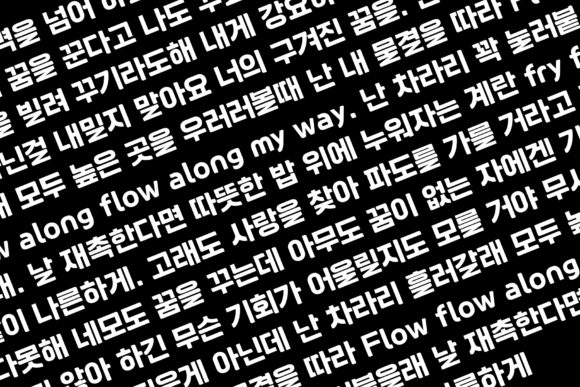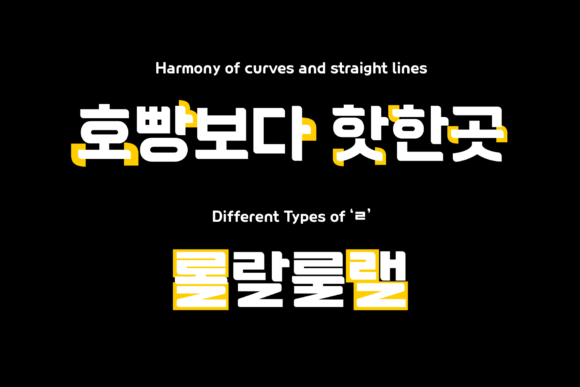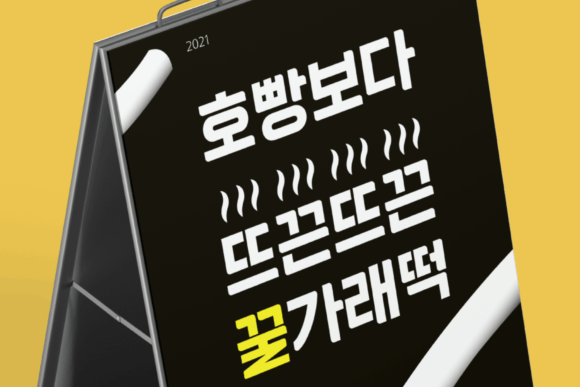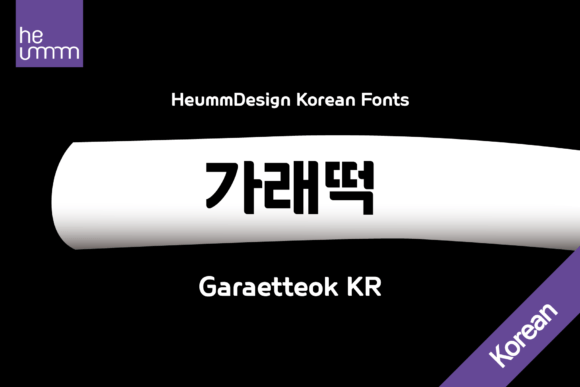
Garaetteok Kr Font: A Cute and Playful Headline Font
In the world of typography, fonts play a crucial role in conveying the tone and personality of a message. For designers and crafters, finding the perfect font can be a daunting task. However, if you’re looking for a font that exudes cuteness and playfulness, look no further than Garaetteok Kr Font. In this article, we’ll explore the unique features of Garaetteok Kr Font and why it’s a great addition to your design toolkit.
The Inspiration Behind Garaetteok Kr Font
Garaetteok Kr Font is a headline font that draws inspiration from the traditional Korean rice cake, garaetteok. The font’s design is characterized by straight strokes and rounded ends, giving it a distinctive rice cake feel. The creator of the font aimed to capture the playful and lively spirit of Korean culture, and the result is a font that’s both fun and engaging.
Unique Design Elements
One of the standout features of Garaetteok Kr Font is its unique design elements. The initial and final consonants ‘ㄹ’ are designed differently, giving the font a fun sense of rhythm. The straight strokes and lively curves add personality to the writing, making it perfect for headlines and titles. The font’s design is also optimized for Hangul, Korean, making it a great choice for designers working with Korean language projects.
Key Features of Garaetteok Kr Font
- Cute and playful design: Garaetteok Kr Font is perfect for designers looking for a font that adds a touch of whimsy to their designs.
- Straight strokes and rounded ends: The font’s unique design elements give it a distinctive rice cake feel.
- Fun sense of rhythm: The initial and final consonants ‘ㄹ’ are designed differently, adding a playful touch to the font.
- Lively curves: The font’s curves add personality to the writing, making it perfect for headlines and titles.
- Hangul and Korean language support: Garaetteok Kr Font is optimized for Hangul, Korean, making it a great choice for designers working with Korean language projects.
Use Cases for Garaetteok Kr Font
Garaetteok Kr Font is a versatile font that can be used in a variety of design projects. Here are some use cases where the font shines:
- Headlines and titles: The font’s playful design makes it perfect for headlines and titles that need to grab attention.
- Branding and logos: Garaetteok Kr Font can be used to create unique and memorable brand identities.
- Packaging design: The font’s cute and playful design makes it suitable for packaging design projects, such as food labels and product packaging.
- Digital media: Garaetteok Kr Font can be used in digital media, such as social media graphics, blog posts, and website headers.
Garaetteok Kr Font is a unique and playful headline font that’s perfect for designers and crafters looking to add a touch of whimsy to their designs. With its straight strokes, rounded ends, and fun sense of rhythm, this font is sure to grab attention. Whether you’re working on a Korean language project or simply looking for a font that adds personality to your design, Garaetteok Kr Font is a great choice.
In conclusion, Garaetteok Kr Font is a cute and playful headline font that’s perfect for designers and crafters looking to add a touch of personality to their designs. With its unique design elements, key features, and versatile use cases, this font is sure to become a favorite in your design toolkit.